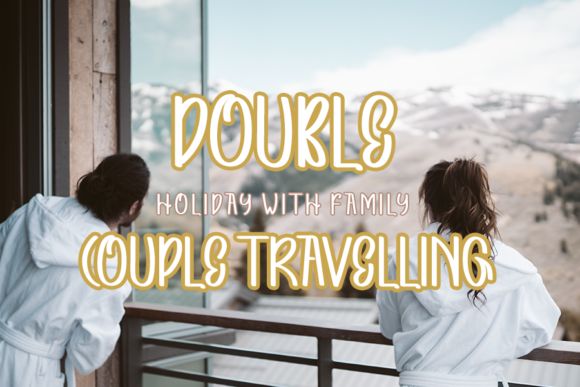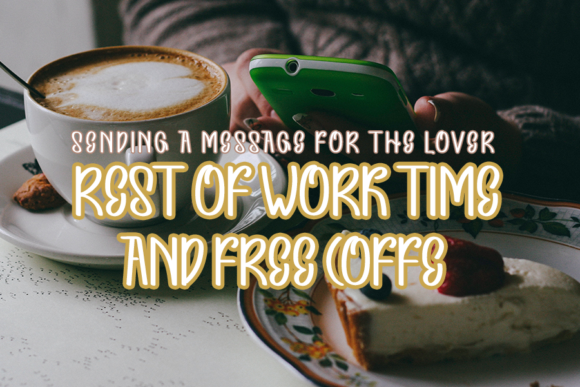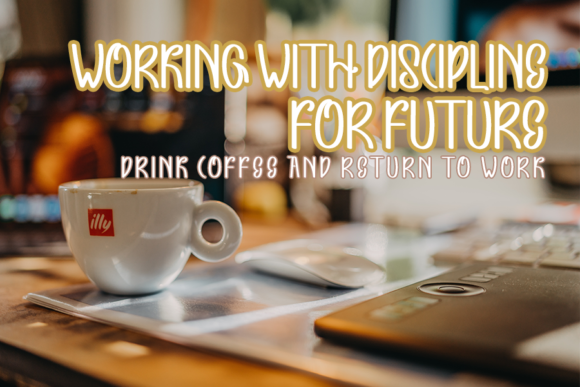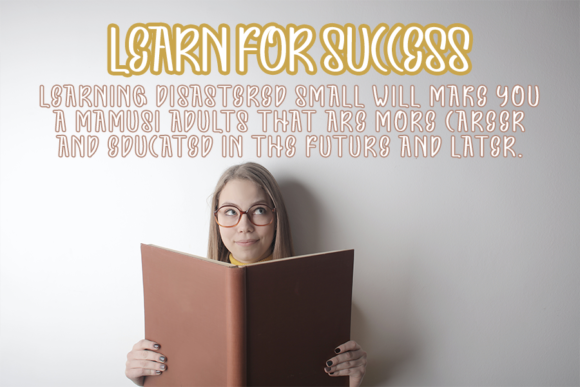
Introducing Happy Monday Font: The Joyful Handwritten Font to Elevate Your Creativity
Are you tired of using the same old fonts for your creative projects? Do you want to add a touch of joy and excitement to your designs? Look no further than the Happy Monday Font! This enchanting handwritten font is designed to turn any creative idea into a true standout, making it perfect for designers and crafters alike.
What is Happy Monday Font?
Happy Monday Font is a joyful handwritten font that is fun, exciting, and full of personality. Its unique and playful design makes it perfect for a wide range of creative projects, from greeting cards and invitations to social media graphics and branding materials. With its whimsical and enchanting feel, Happy Monday Font is sure to bring a smile to anyone’s face.
Key Features of Happy Monday Font
- Handwritten design: Happy Monday Font features a beautiful, handwritten design that gives it a personal and unique touch.
- Fun and exciting: This font is designed to add a touch of joy and excitement to your designs, making it perfect for projects that require a playful and creative approach.
- Enchanting feel: Happy Monday Font has an enchanting feel that makes it perfect for a wide range of creative projects, from whimsical designs to more serious and elegant ones.
- Versatile: This font is versatile and can be used for a wide range of projects, including greeting cards, invitations, social media graphics, and branding materials.
Why Use Happy Monday Font?
There are many reasons why you should consider using Happy Monday Font for your creative projects. Here are a few:
- Add a personal touch: Happy Monday Font’s handwritten design gives it a personal and unique touch that can help you stand out from the crowd.
- Convey emotions: This font’s joyful and exciting design makes it perfect for conveying emotions and adding a touch of personality to your designs.
- Easy to read: Despite its playful design, Happy Monday Font is easy to read and can be used for both headings and body text.
- Time-saving: With Happy Monday Font, you can create stunning designs in no time, saving you time and effort.
How to Use Happy Monday Font
Using Happy Monday Font is easy! Here are a few tips to get you started:
- Pair it with other fonts: Happy Monday Font pairs well with other fonts, so feel free to experiment with different combinations to create a unique look.
- Use it for headings: This font is perfect for headings and titles, but you can also use it for body text for a more playful look.
- Experiment with colors: Happy Monday Font looks great in a variety of colors, so don’t be afraid to experiment and find the perfect color scheme for your design.
Who Can Benefit from Happy Monday Font?
Happy Monday Font is perfect for a wide range of designers and crafters, including:
- Graphic designers: If you’re a graphic designer looking for a unique and playful font to add to your collection, Happy Monday Font is a great choice.
- Crafters: If you’re a crafter who loves to create handmade cards, invitations, and other paper crafts, Happy Monday Font is perfect for adding a personal touch to your projects.
- Social media managers: If you’re a social media manager looking for a font that can help you stand out on social media, Happy Monday Font is a great choice.
In conclusion, Happy Monday Font is a joyful handwritten font that is perfect for designers and crafters who want to add a touch of joy and excitement to their creative projects. With its unique and playful design, Happy Monday Font is sure to turn any creative idea into a true standout. So why wait? Download Happy Monday Font today and start creating stunning designs that will leave a lasting impression!